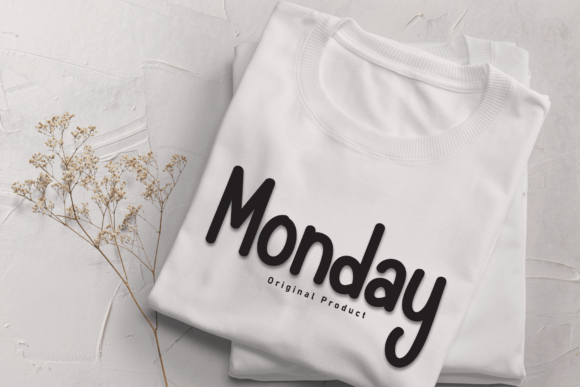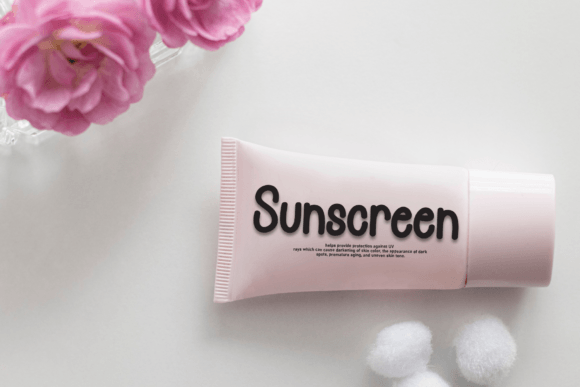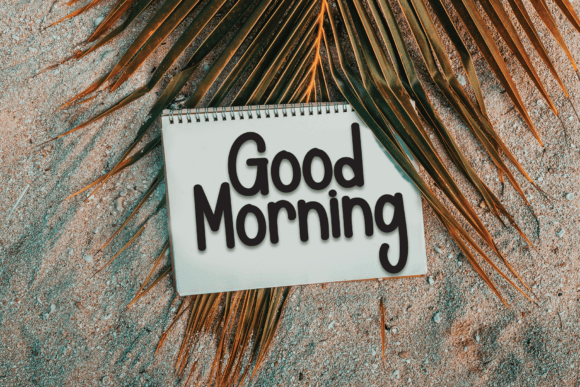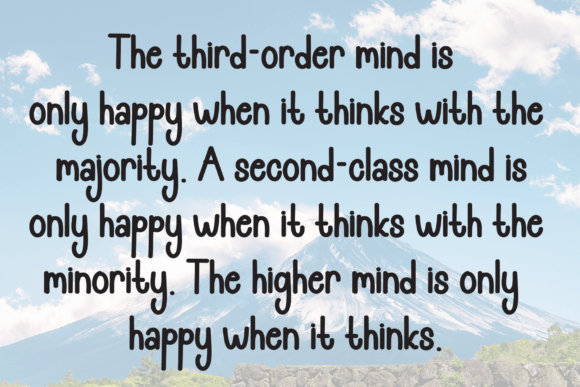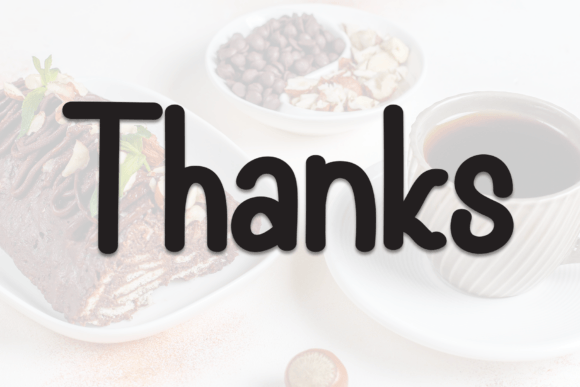
Discover the Whimsical Charm of Coffelate Font
As a designer, I’ve had my fair share of moments where finding the perfect font felt like searching for a needle in a haystack. I recall working on a wedding invitation project, determined to create something that would make the couple’s special day even more memorable. The challenge? Finding a font that exuded sweetness, friendliness, and a dash of playfulness. That’s when I stumbled upon Coffelate Font, a whimsically handcrafted display font that has since become a staple in my design toolkit.
A Personal Review: What I Love and What to Consider
- ✅ Adorable aesthetics: Coffelate Font embodies a charming personality that instantly adds a touch of whimsy to any design project.
- ✅ Playful elegance: This font strikes the perfect balance between fun and sophistication, making it ideal for wedding invitations, cards, and other celebratory designs.
- ✅ Handwritten appeal: The font’s handcrafted nature gives it a unique, organic feel that sets it apart from more traditional typefaces.
- ✅ Cheerful sophistication: Coffelate Font is perfect for designers looking to add a dash of fun and personality to their work.
- ⚠️ Limited use cases: While Coffelate Font is perfect for display purposes, it may not be the best choice for body text or longer blocks of content.
- ⚠️ Glyph limitations: As with any font, there may be limitations to the number of glyphs and special characters available.
The Story Behind Coffelate Font
Coffelate Font was designed with the intention of creating a typeface that would bring a touch of whimsy and playfulness to design projects. The designer aimed to craft a font that would be both elegant and fun, perfect for special occasions and celebrations. The result is a font that exudes a charming personality and adds a dash of personality to any design.
Q: What is Coffelate Font best used for?
A: Coffelate Font is ideal for display purposes, such as wedding invitations, cards, and other celebratory designs.
Q: Is Coffelate Font suitable for body text?
A: While Coffelate Font is perfect for display purposes, it may not be the best choice for body text or longer blocks of content.